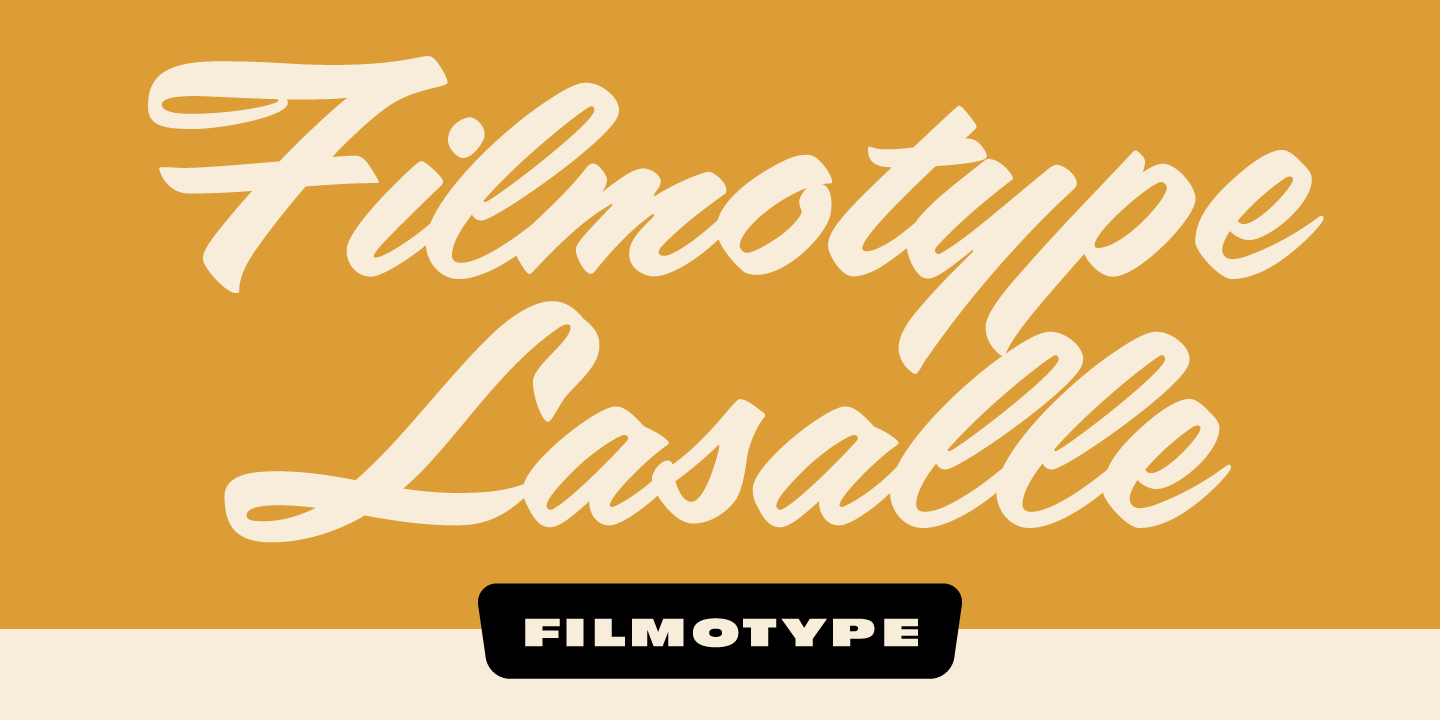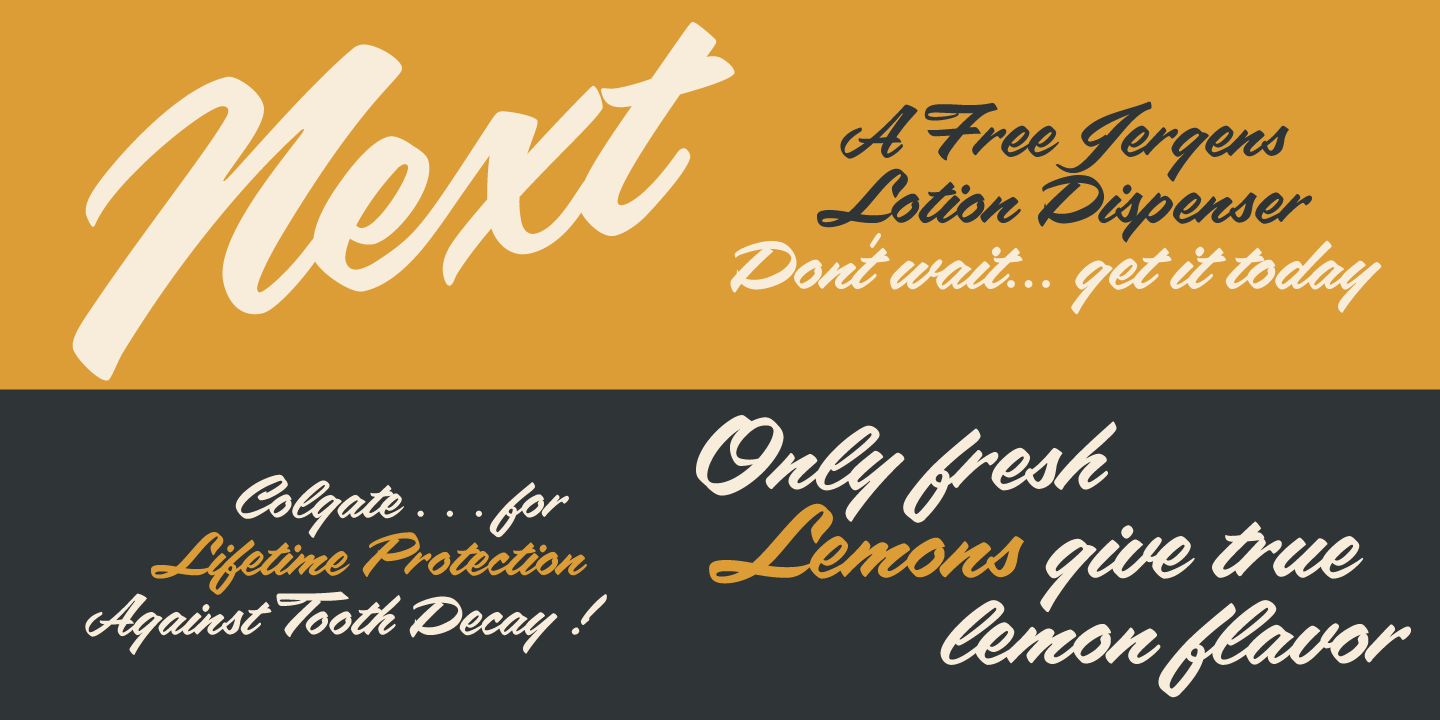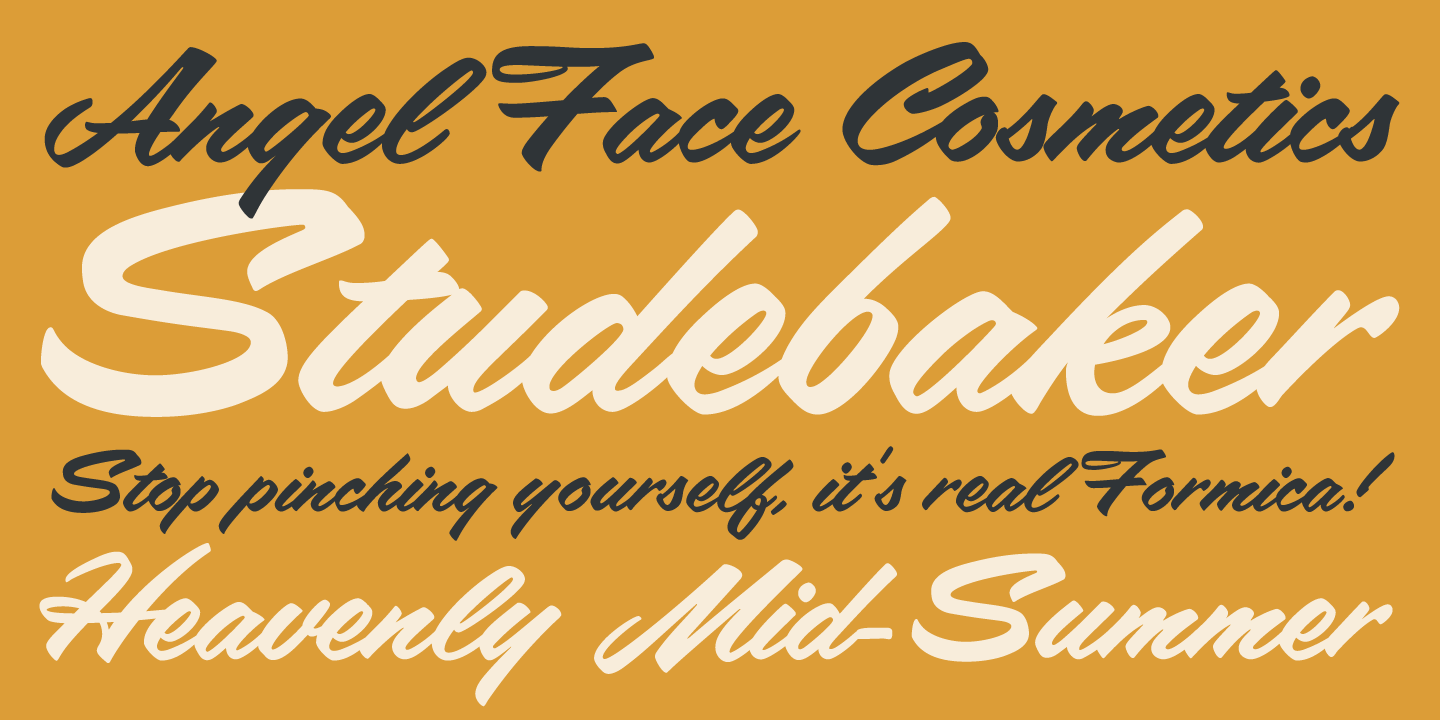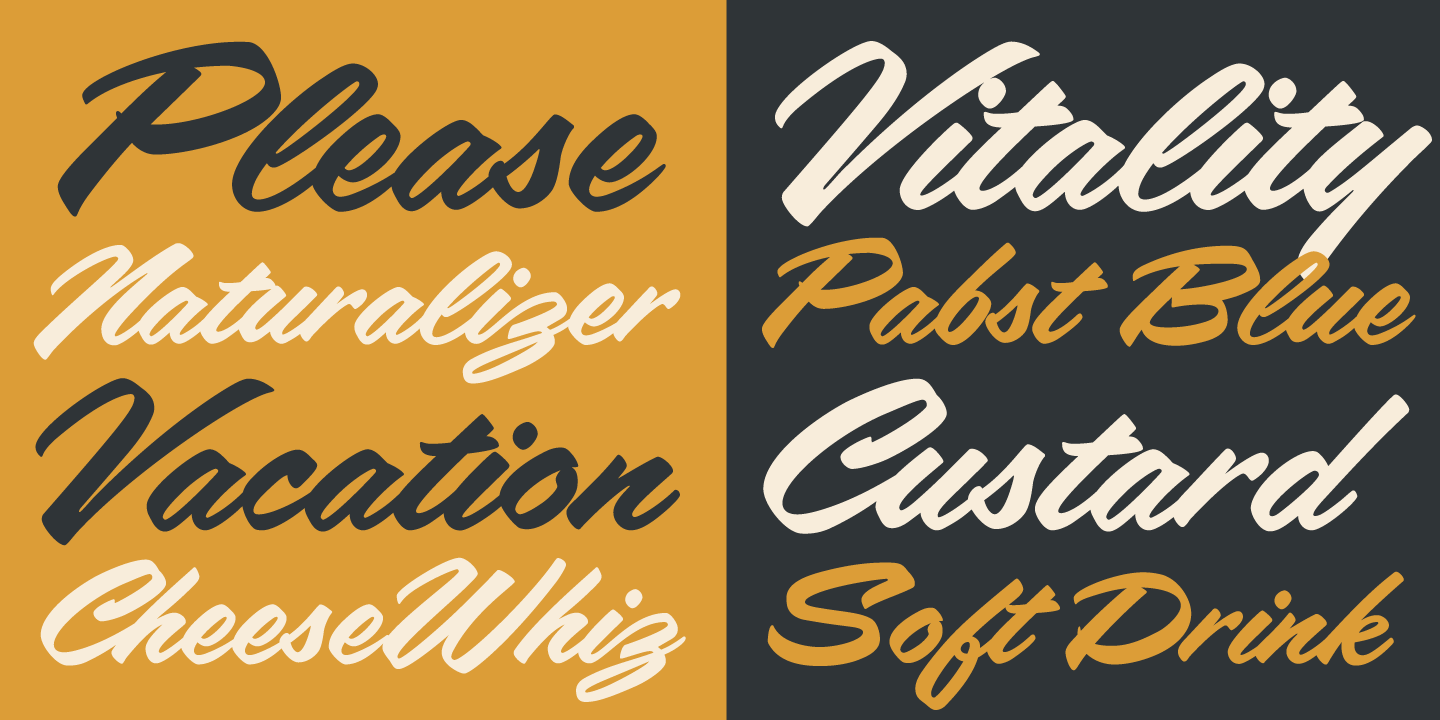
Filmotype LaSalle
Among the very first handwritten script fonts offered by Filmotype in the beginning of the 1950s, Filmotype LaSalle was designed by Ray Baker, a former Lettering Inc employee at the time who named the face after LaSalle street in downtown Chicago.
Filmotype LaSalle was developed from the original font filmstrips and includes a full international character compliment, automatic fractionals, ordinals, and a very large set of alternate characters and ligatures to allow flawless typesetting in dynamic OpenType format.